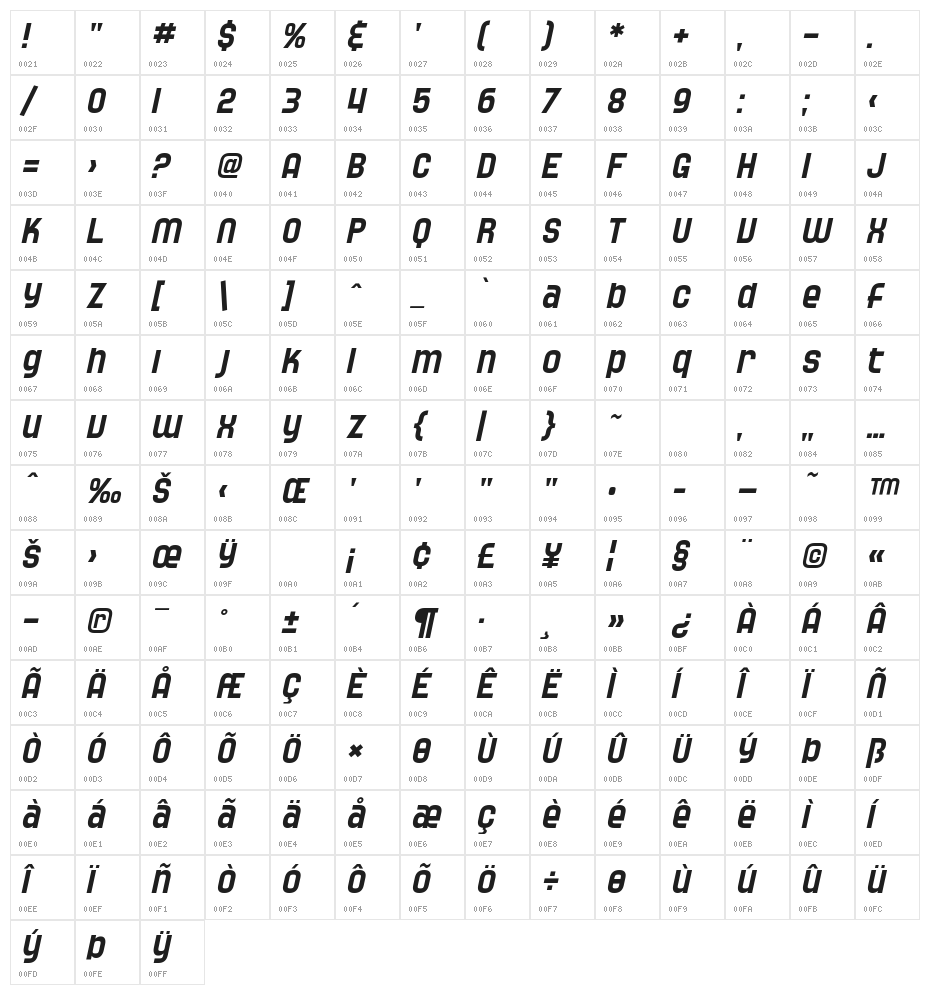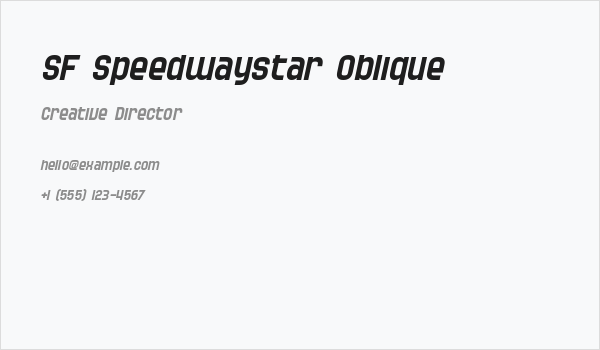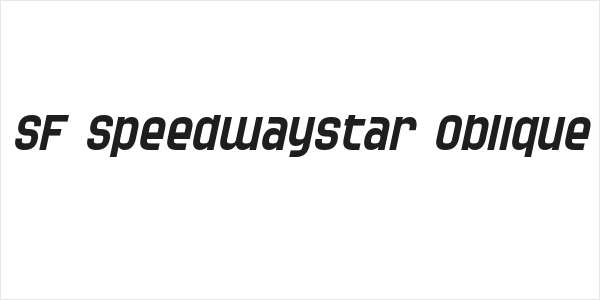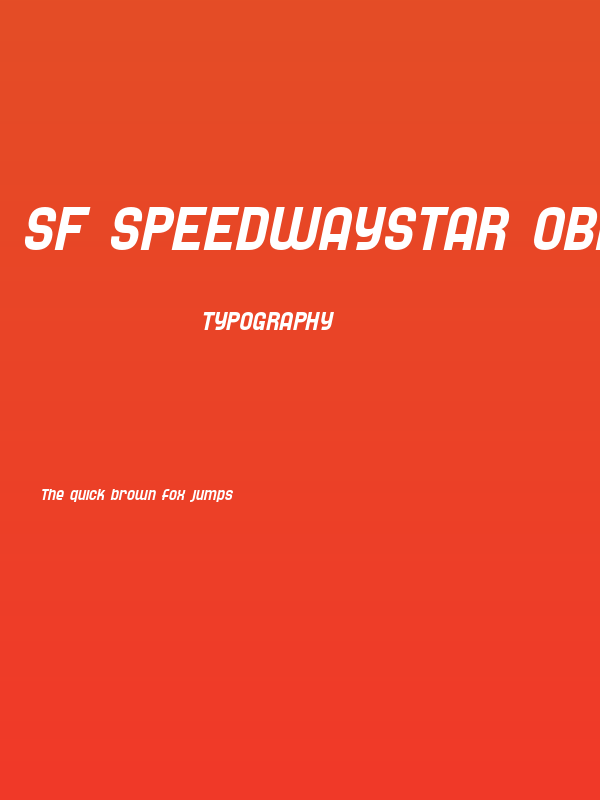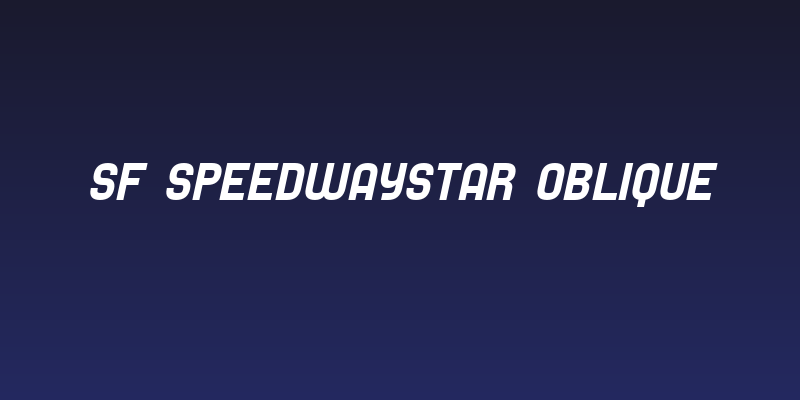
SF Speedwaystar Oblique Font
SF Speedwaystar Oblique Description
This font features a dynamic and modern oblique style, characterized by its forward-leaning letters that convey a sense of speed and motion. The characters are bold and slightly condensed, with smooth curves and sharp edges that enhance its sleek appearance. The uppercase and lowercase letters maintain a consistent style, while the numerals and special characters complement the overall design. The font's clean lines and geometric shapes make it suitable for a variety of applications, offering a contemporary and energetic aesthetic.
| Proposed Projects | Ideal for automotive branding, sports team logos, dynamic posters, and modern web design. |